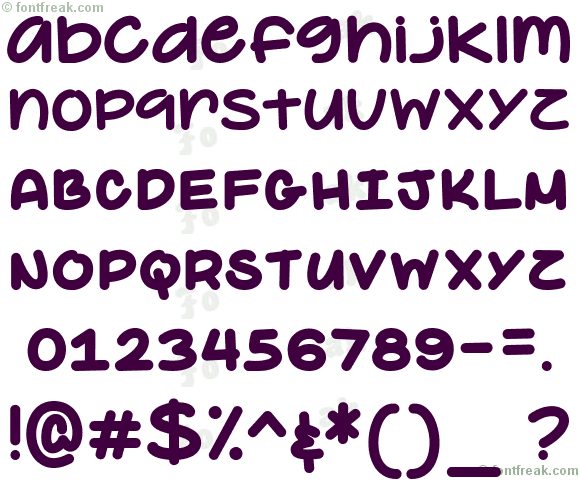
Elephant Ears Demo
About Elephant Ears Demo
The Elephant Ears Demo font by Misti Hammers is a captivating display typeface that brings a playful and whimsical flair to any design project. Characterized by its rounded, chunky strokes, this font exudes a friendly and approachable vibe, making it a perfect choice for a variety of applications. The stroke weight is consistent, providing a balanced appearance that enhances readability while maintaining a lighthearted aesthetic. The spacing between characters is generous, allowing for easy legibility and a lively flow.
This font shines in contexts where a touch of charm is desired. Ideal use cases include wedding invitations that aim to capture a joyous atmosphere, children's book titles that need a fun and engaging appeal, and restaurant menus seeking to convey a welcoming environment. Additionally, Elephant Ears Demo is well-suited for creative branding projects, such as artisanal products or boutique shops that want to stand out with a unique identity. Its versatility also extends to digital content, making it an excellent choice for social media graphics and promotional materials.
Targeted at graphic designers, small business owners, and content creators, Elephant Ears Demo offers a delightful option for those looking to add personality to their work. The font's playful nature allows it to resonate with audiences of all ages, making it a valuable asset in any designer's toolkit.
What truly sets the Elephant Ears Demo font apart is its ability to blend fun with functionality. The unique design elements and approachable style make it memorable, ensuring that whatever project you incorporate it into will leave a lasting impression. With the Elephant Ears Demo font free download available, you can easily explore its potential and bring a distinctive touch to your creative endeavors.